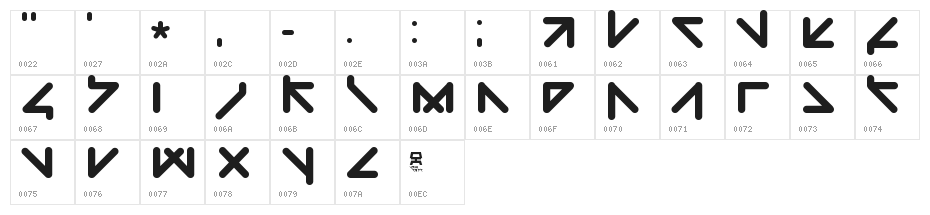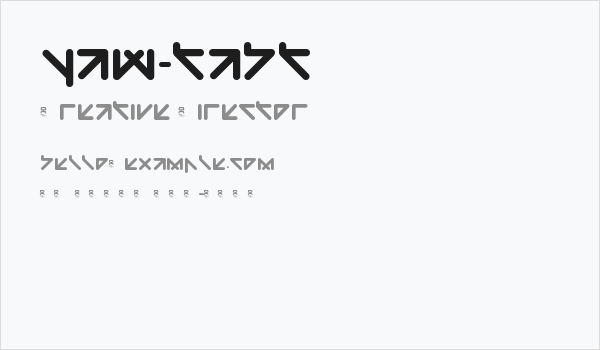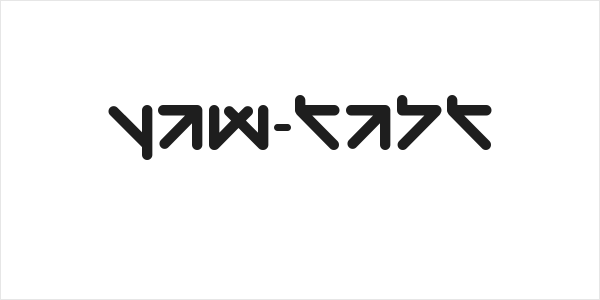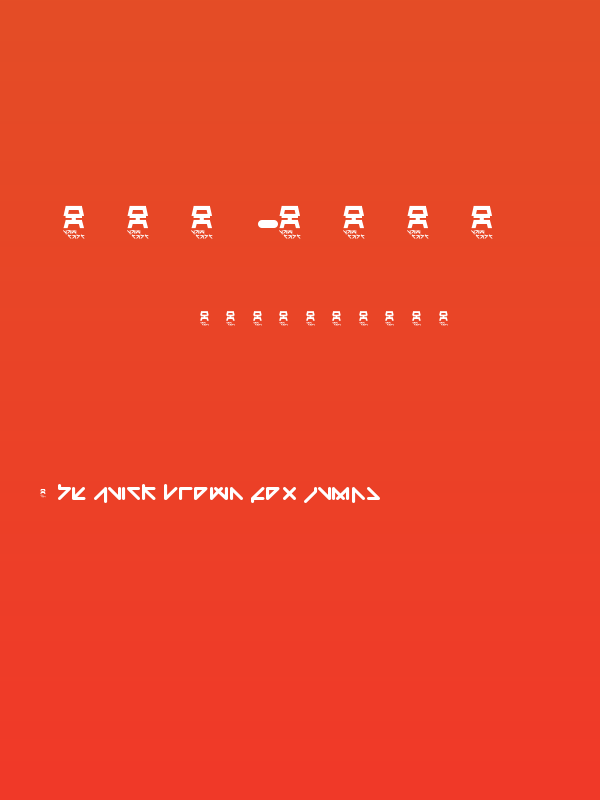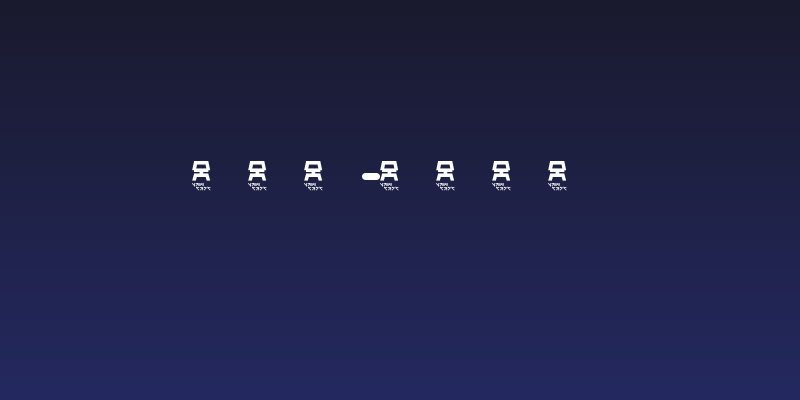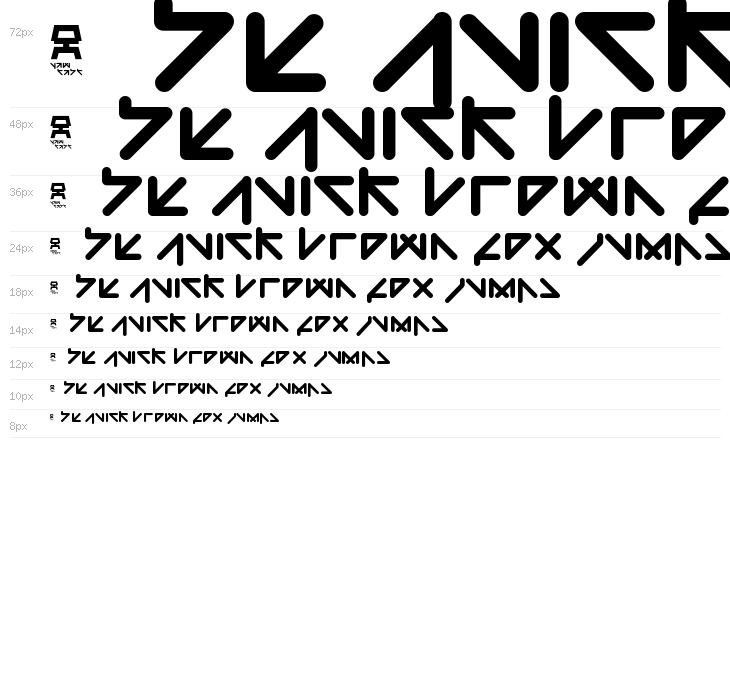
yaw-taht Font
yaw-taht Description
This font features a unique, futuristic design with angular and geometric shapes. Each character is crafted with bold, thick strokes, giving it a strong and impactful presence. The style is reminiscent of digital or sci-fi themes, with a modern twist that makes it stand out. The characters are distinct and easily recognizable, making it suitable for creative and innovative projects. The font's design is consistent across uppercase, lowercase, and numerical characters, maintaining a cohesive look. Special characters are also included, following the same stylistic approach.
| Proposed Projects | Ideal for sci-fi themed designs, video game graphics, tech branding, and futuristic posters. |